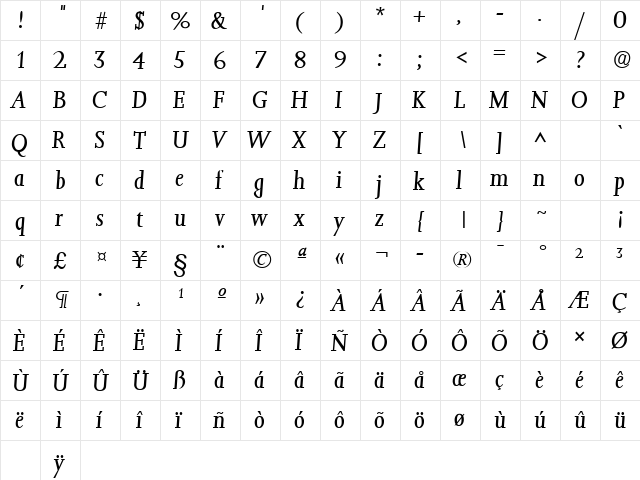
Jessica Italic Font Preview
Jessica Italic
Jessica Italic Font Details
Design Context for Jessica Typeface
Jessica takes a measured approach to typography — its balanced proportions and neutral character make it a reliable workhorse for both digital and print work. The dynamic lean of this cut emphasises speed and emphasis in any layout.
Pro Tip: Use Jessica for emphasis, pull quotes, and subheadings where its slanted energy can add rhythm to the layout.